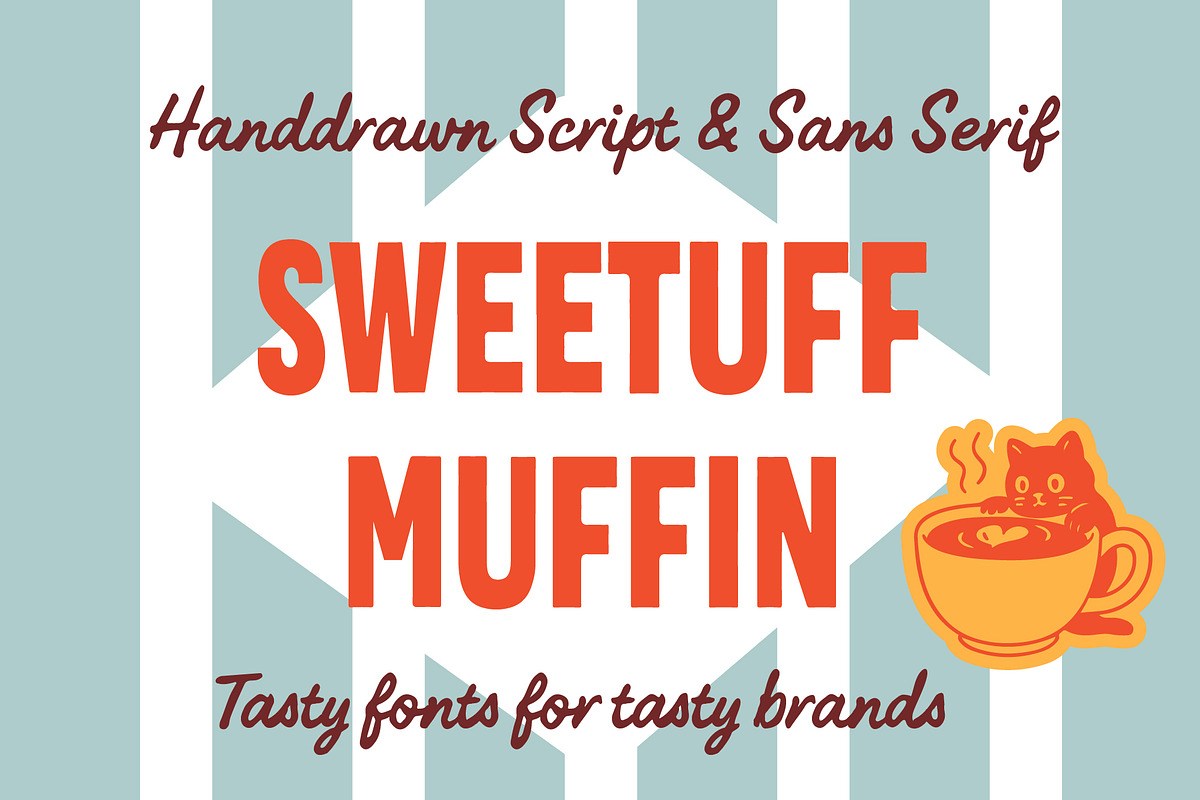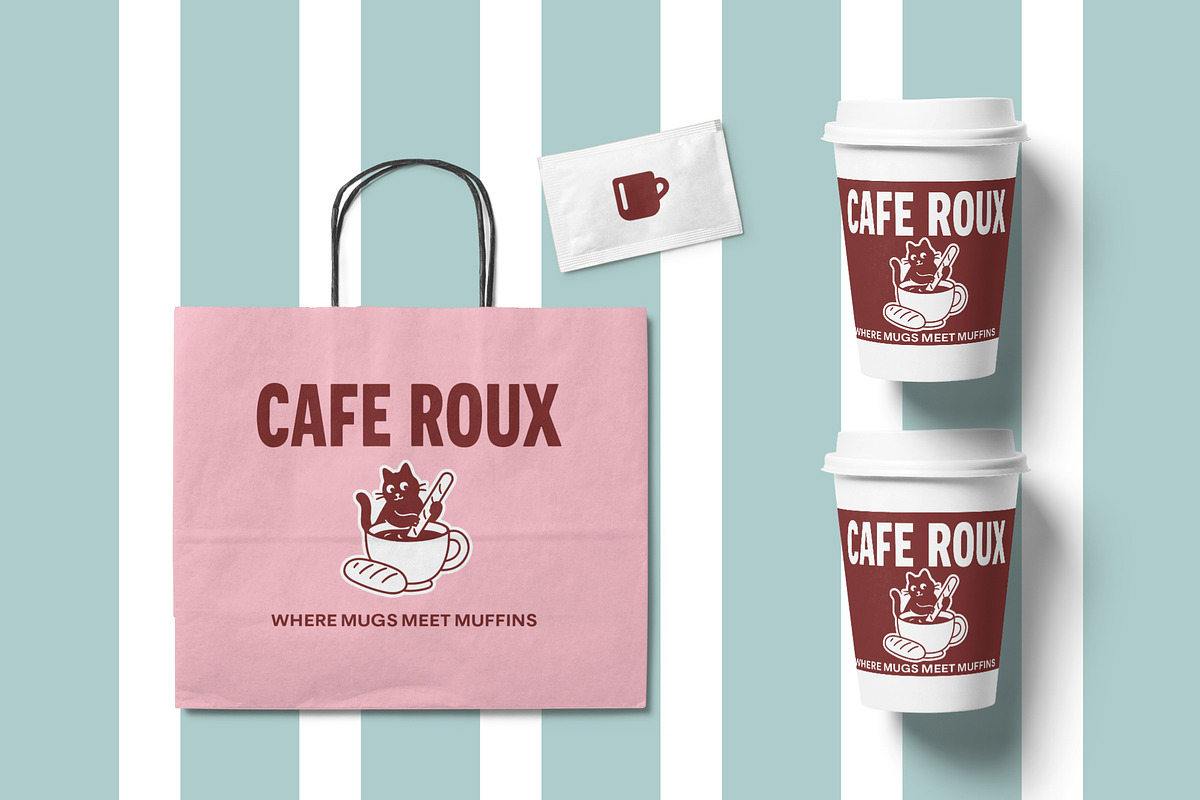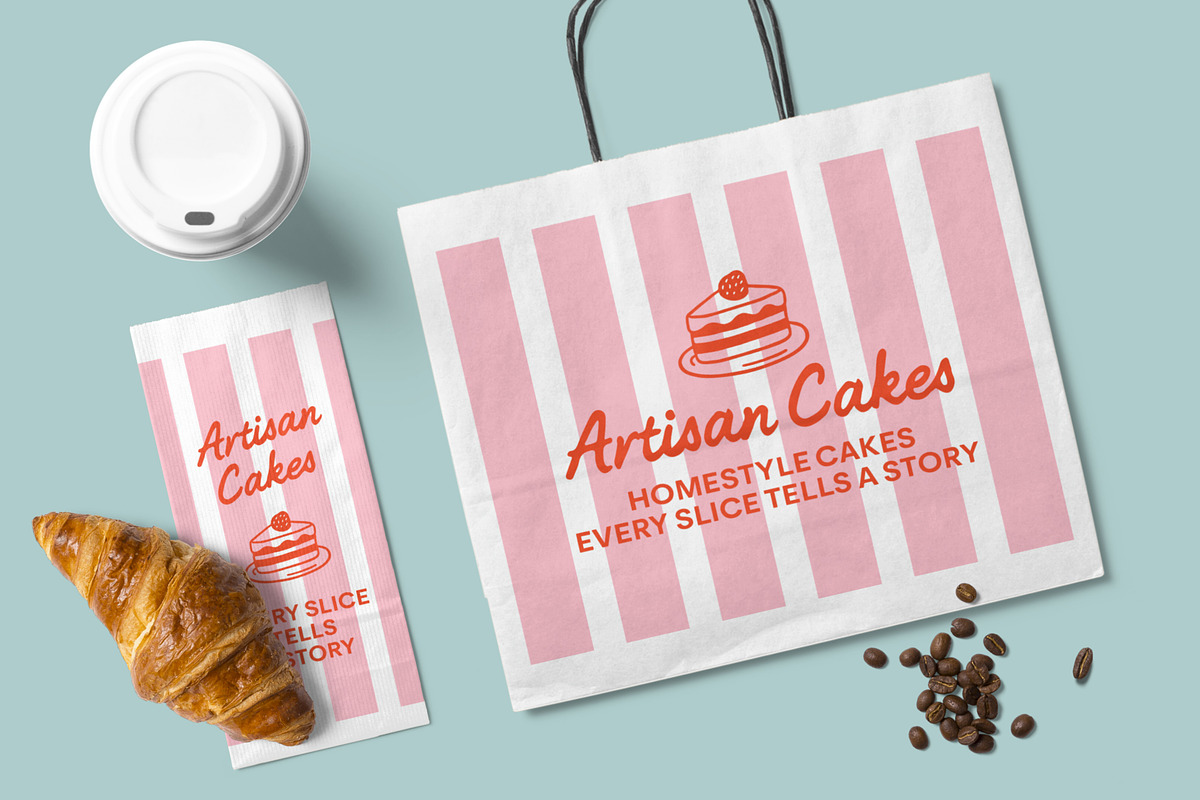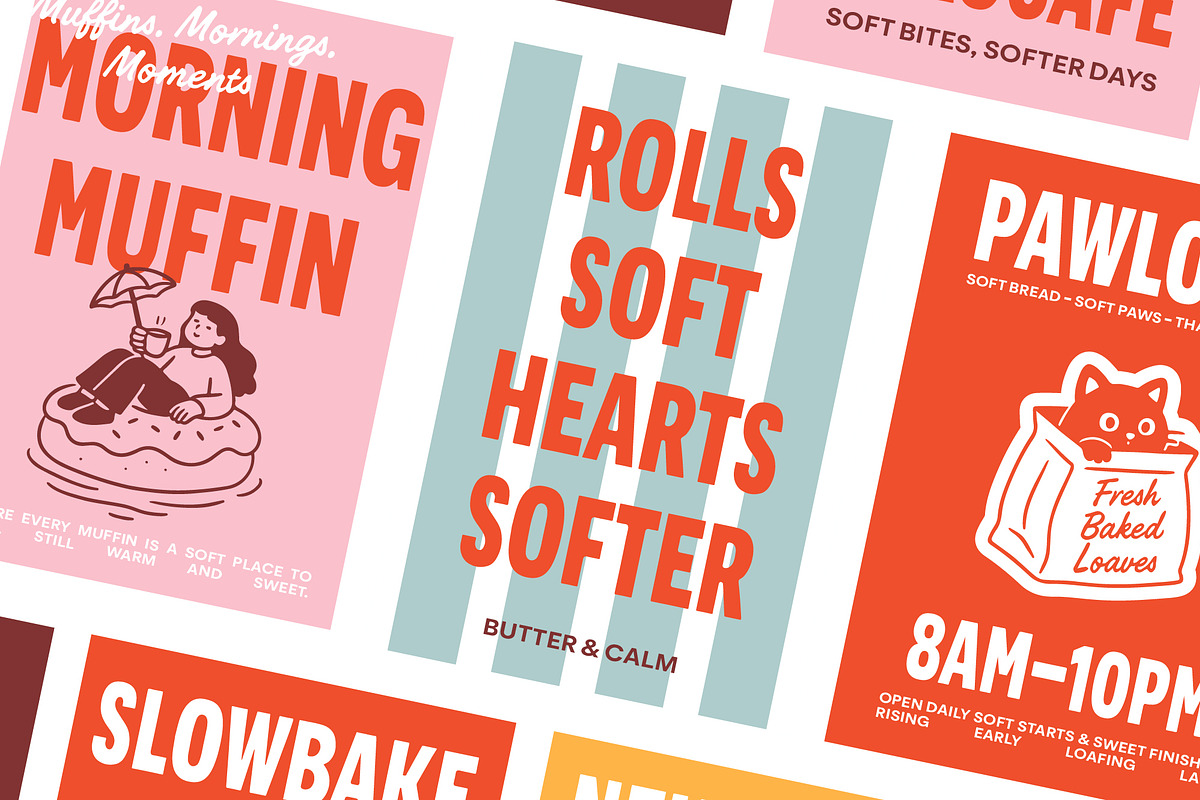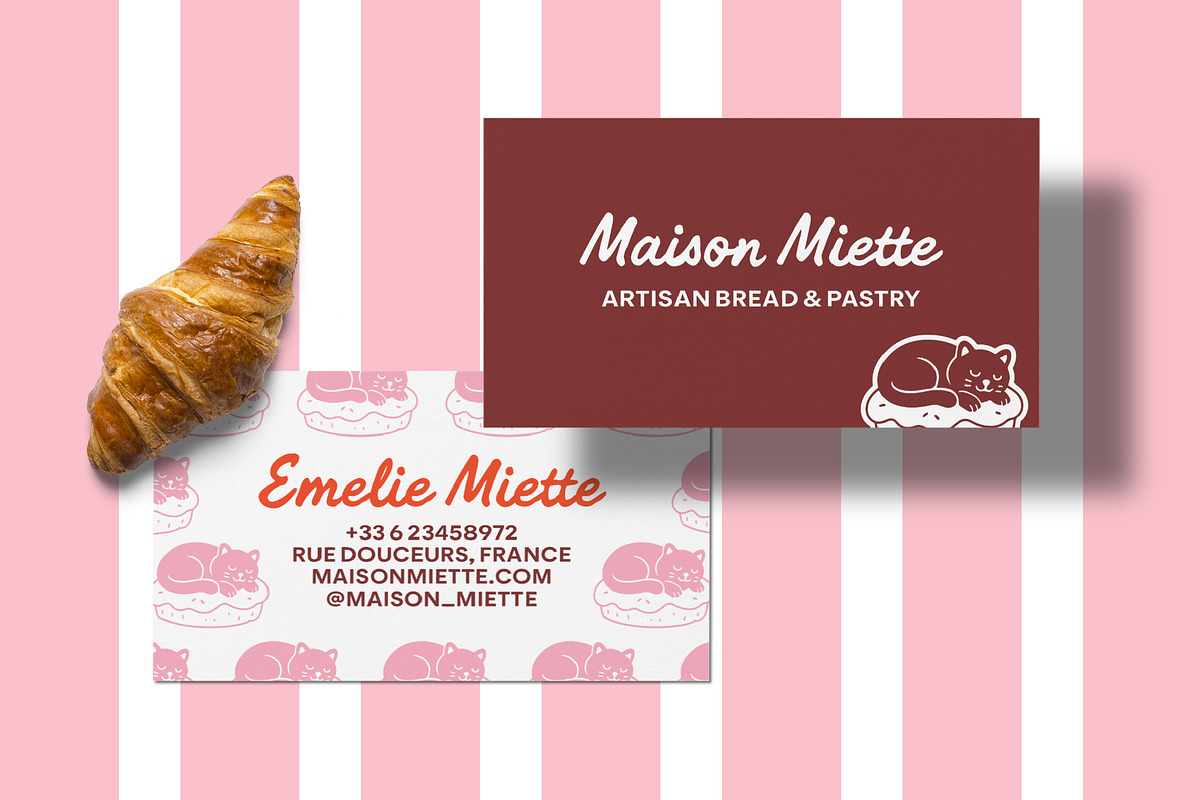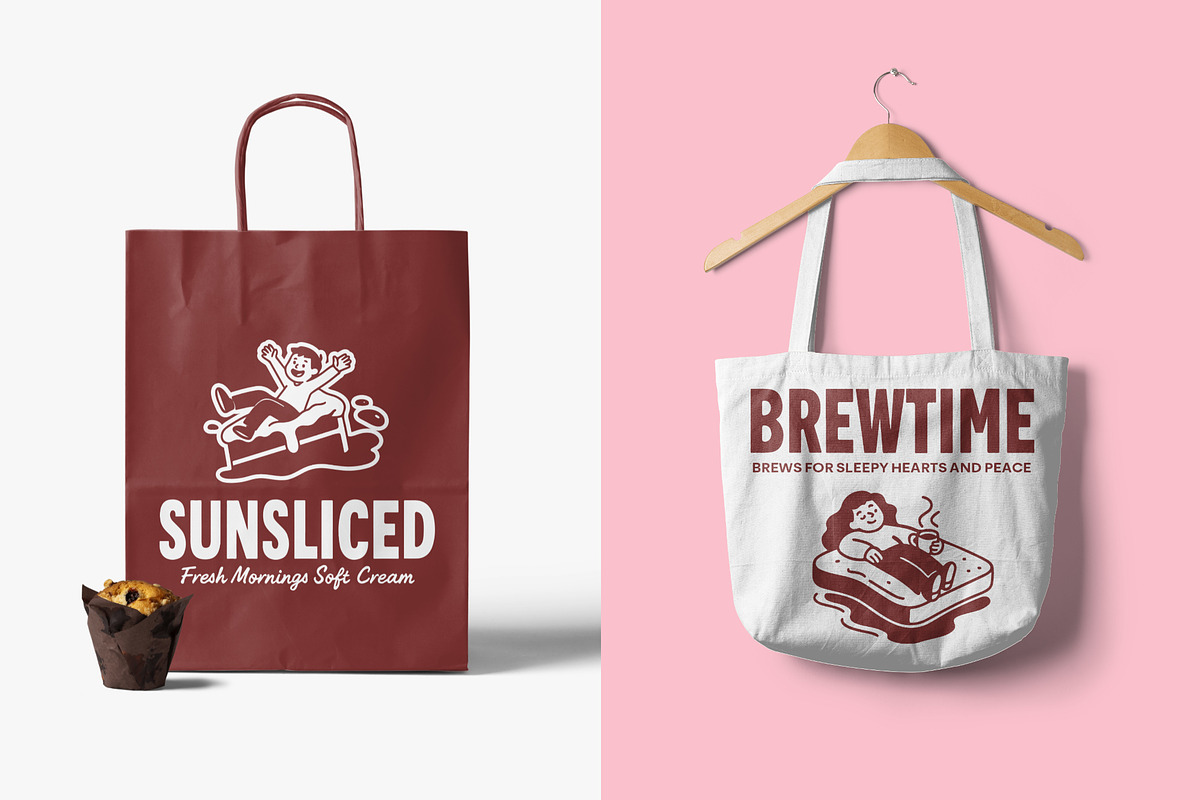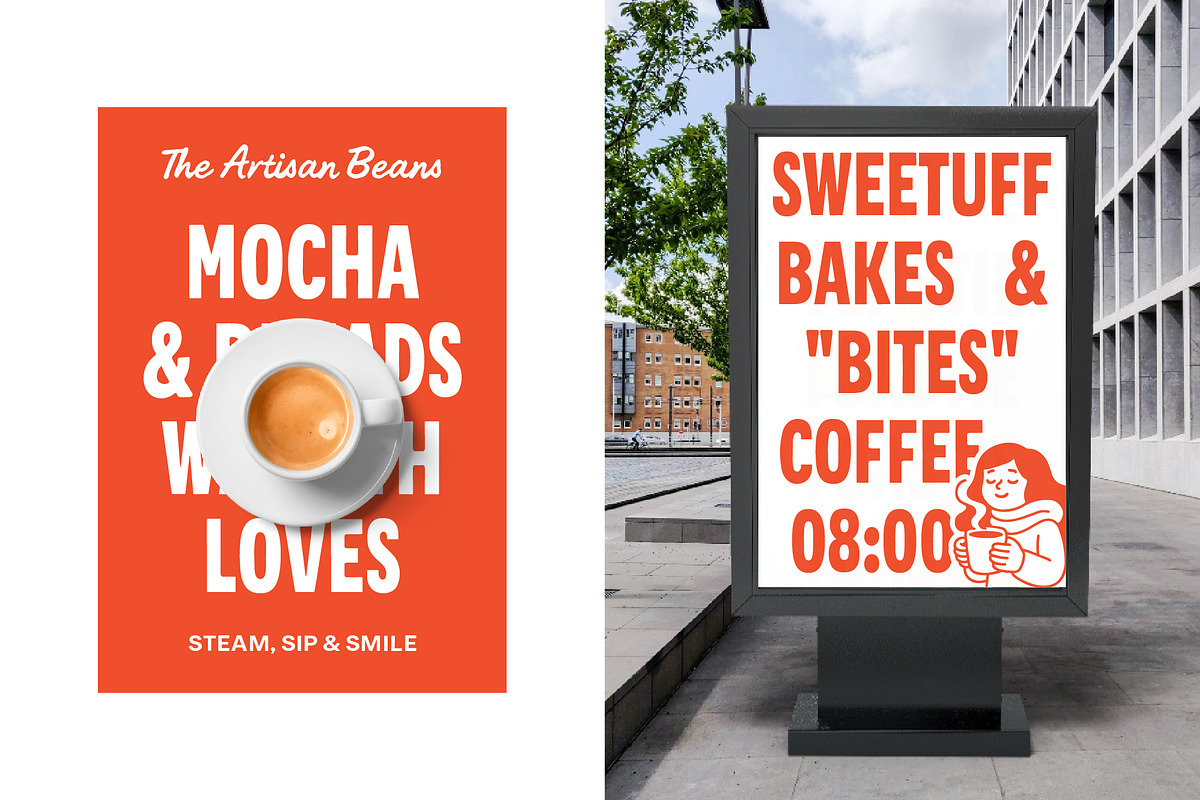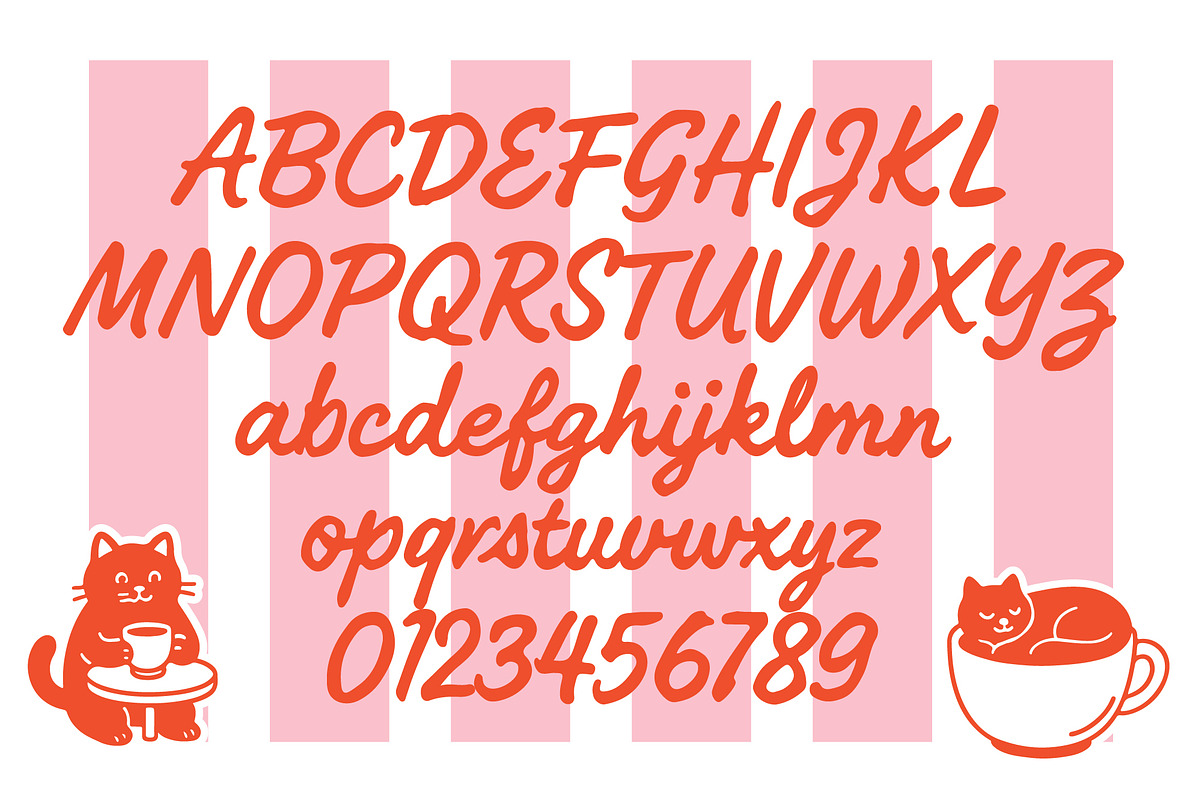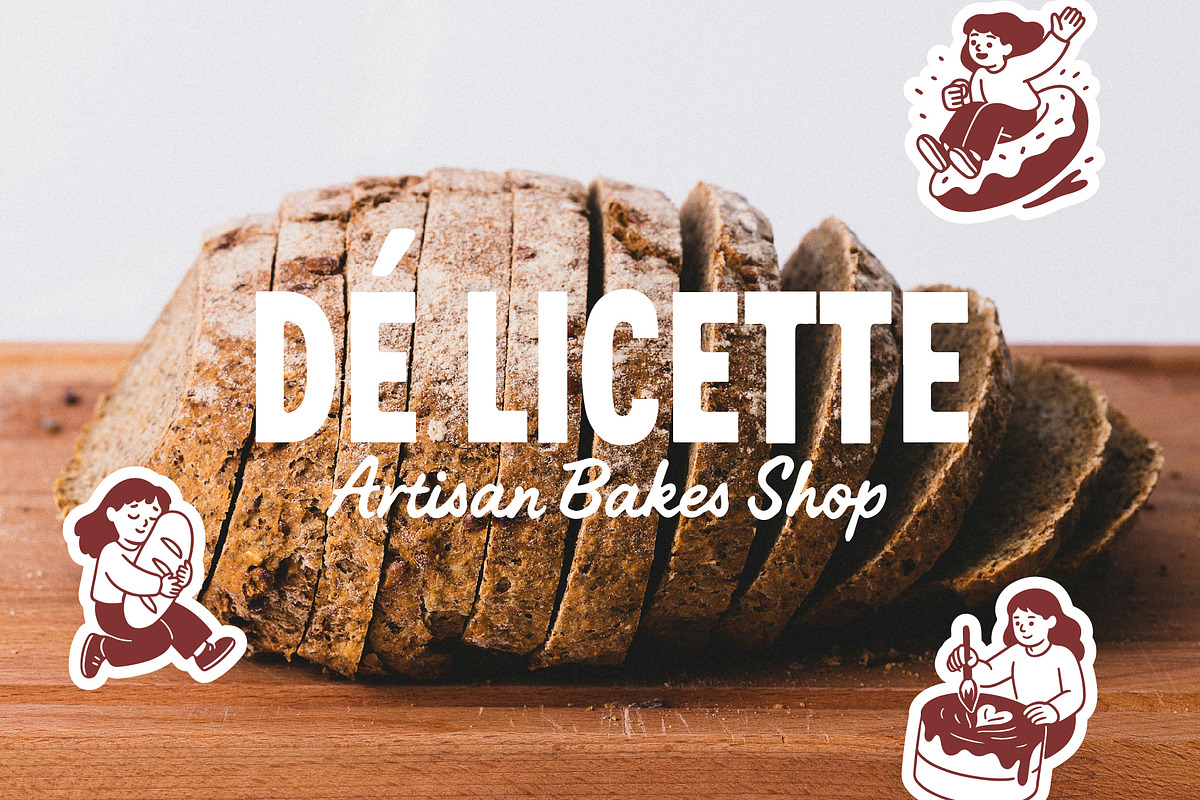
Sweetuff Muffin - Display Font
Sweetuff Muffin is a warm and whimsical font duo crafted for cozy brands, handmade packaging, and delicious design. With a playful script and two clean sans styles (Condensed & Expanded), this font family brings charm and clarity to every layout — from coffee cups and cake boxes to logo designs and storefronts.
Each style is carefully hand-drawn to pair effortlessly, giving you flexibility in both casual and professional projects. Whether you're branding a café, designing a bakery label, or creating cheerful merch, Sweetuff Muffin adds a soft, tasty touch to your type.
- Uppercase, lowercase, numeral, symbol, punctuation, alternate and ligature in script font
- All-caps, numeral, symbol and punctuation in sans serif font